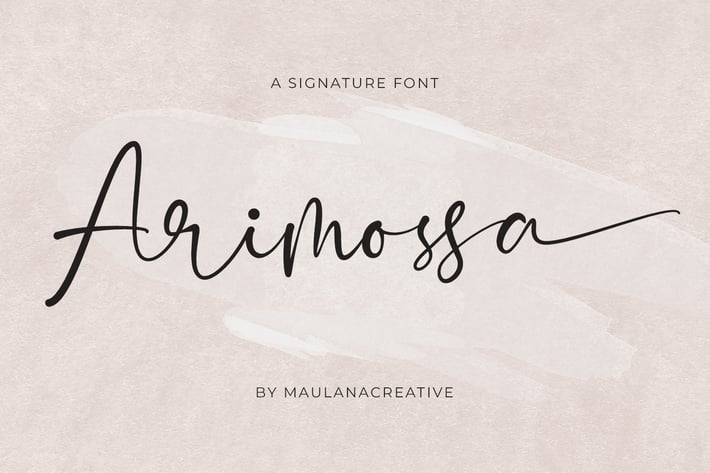
Arimossa Signature Font
Give your designs an authentic handcrafted feel. "Arimossa" is perfectly suited to signature, stationery, logo, typography quotes, magazine or book cover, website header, clothing, branding, packaging design and more.
Ligatures: Ari, i r, ar, ur, ll, ff, fr, tt, br, ss